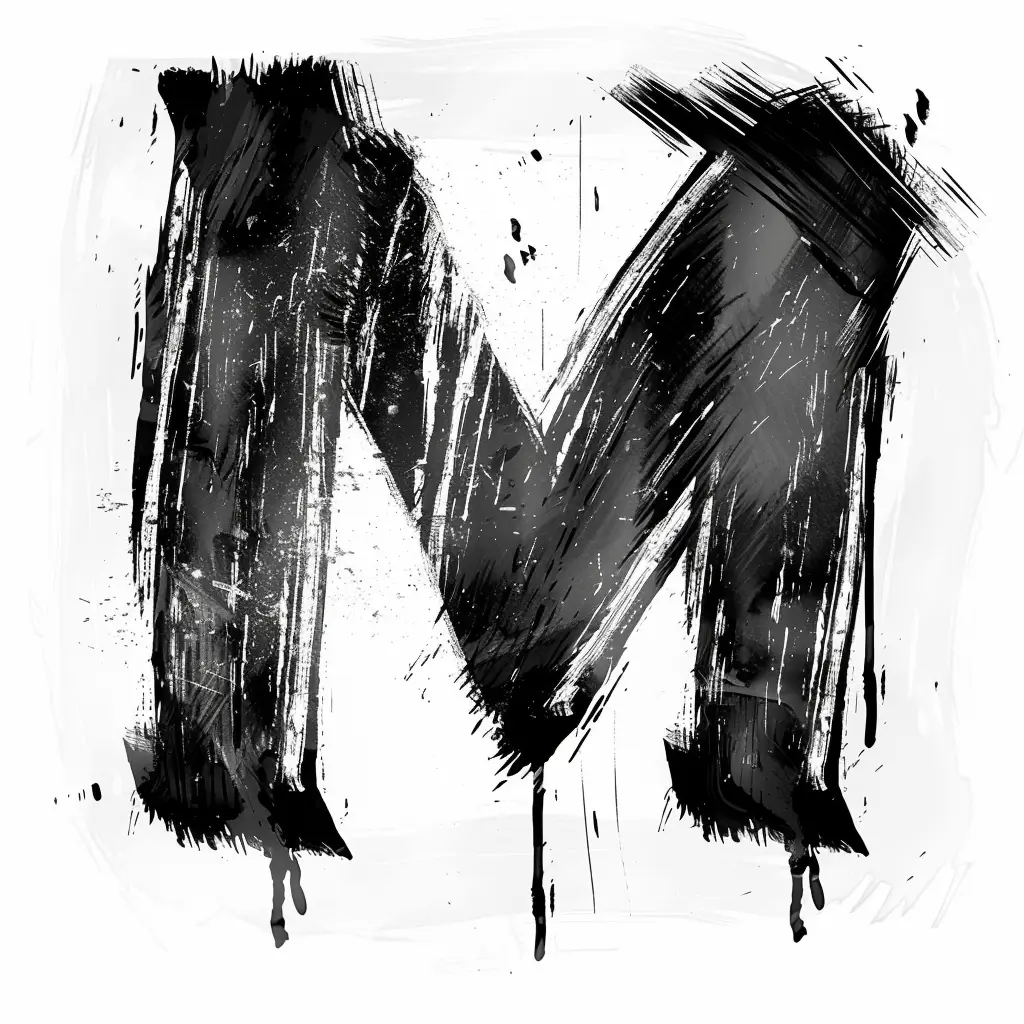
The image features a bold, stylized letter "M" rendered in a rough, brushstroke-inspired artistic style. The letter is predominantly black with textured, uneven edges and dripping paint effects, set against a clean white background. Visual elements include splatters, streaks, and subtle variations in shading, giving it a dynamic, hand-painted appearance.